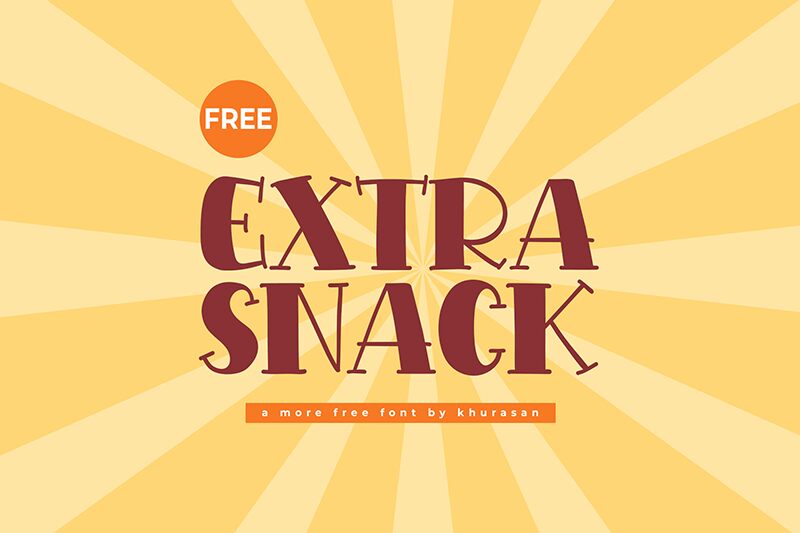
Extra Snack
Extra Snack font is the creative work of Khurasan, a bold cartoon display font with an artistic flair that is just hard to overlook. The decorative appearance holds whimsical features and elegant characters with historical influences. The retro-inspired designs still manage to hold their own today, bringing both a vintage charm and modern touch.
The exquisite display typeface is free with various uses including flyers for events, posters, online posts, magazines and books covers, packaging items such as kids’ toys or snacks, video games (both logo and texts), cards and invitations for different occasions, etc.